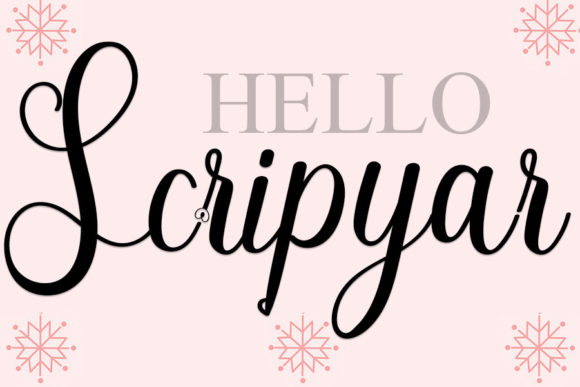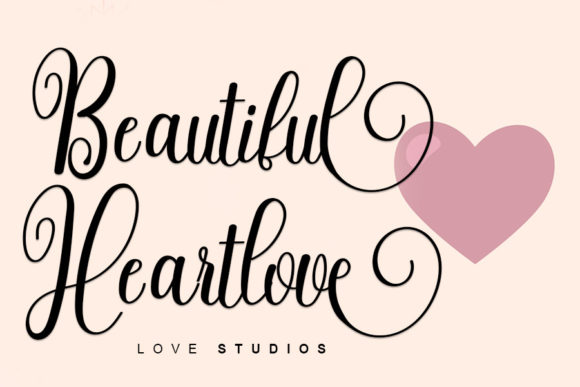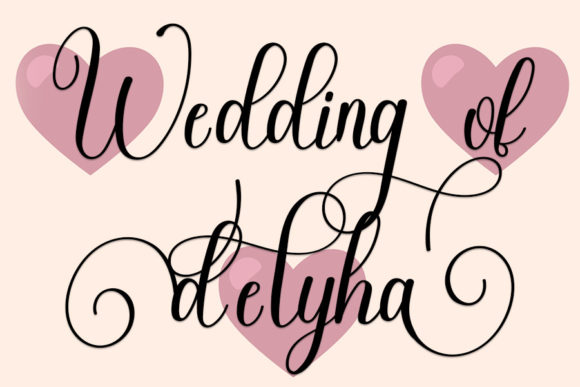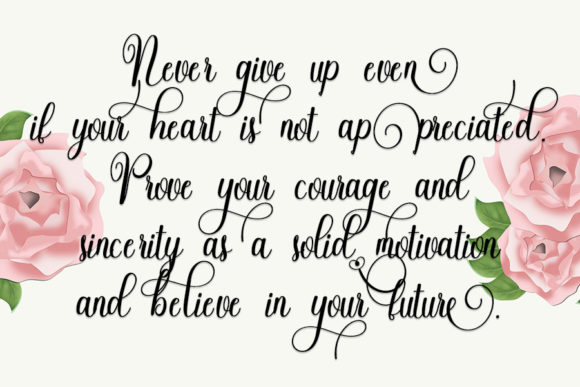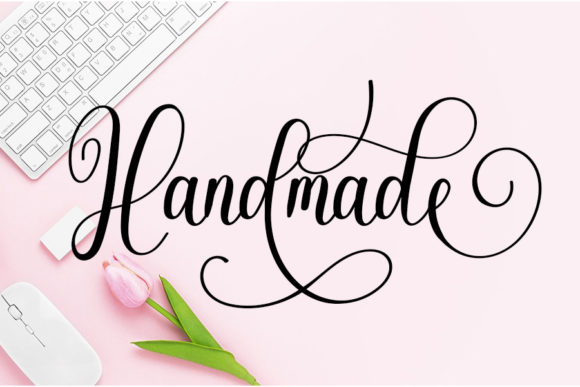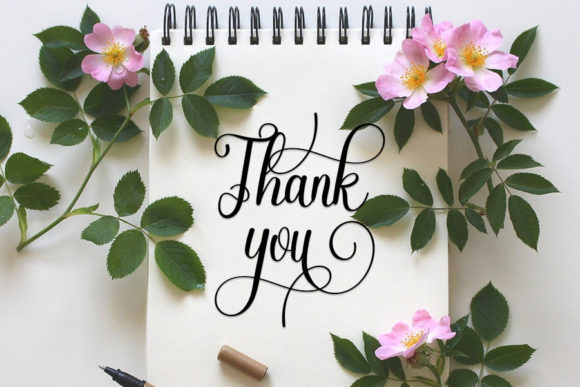
The Art of Elegant Writing: Unlocking the Power of Calligraphy Font
As I sat at my desk, staring at a blank piece of paper, I felt a surge of creativity wash over me. I was in the midst of designing a wedding invitation, and I wanted it to be perfect. The words “I do” danced in my head, and I knew exactly what I needed – a touch of elegance, a dash of whimsy, and a whole lot of love. That’s when I turned to the Calligraphy Font, a timeless and charming handwritten font that brings any design to life.
With the Calligraphy Font, you can add a personal touch to your designs, making them stand out from the crowd. Whether you’re a seasoned designer or a DIY enthusiast, this font is a valuable addition to your toolkit. Its PUA encoding means you can access all of the glyphs and swashes with ease, giving you the freedom to create truly unique and beautiful designs.
Key Features of Calligraphy Font
- Unique Characteristics: Calligraphy Font features intricate, hand-drawn lettering with elegant flourishes and subtle variations in stroke width, giving it a distinctive and artistic feel.
- Font Styles: Calligraphy Font comes in various styles, including Regular, Italic, Bold, and Bold Italic, allowing designers to add depth and visual interest to their designs.
Calligraphy Font Review
Overall, I think the Calligraphy Font is a beautiful addition to any design project. It’s perfect for creating a touch of elegance and sophistication.
- The fluid, handwritten feel of the font is absolutely stunning. It’s perfect for creating invitations, greeting cards, or any other design where a personal touch is needed.
- The font is highly customizable, allowing you to adjust the size, color, and spacing to fit your design needs.
- The Calligraphy Font is also highly legible, making it perfect for body text or headings.
- The font may not be the best choice for projects that require a lot of text or dense content. The fluid, handwritten feel can make it difficult to read when used extensively.
- The font is not as versatile as some other font styles, limiting its use to specific design projects.
Overall, I think the Calligraphy Font is a great addition to any designer’s toolkit, but it’s not without its limitations. With careful use and planning, it can add a beautiful touch to any design project.
Calligraphy font is commonly used in:
- Special occasion cards and gifts
- Brand logos and typography
- Decorative text and headers
Tips for Getting the Most Out of Calligraphy Font
Here are some tips to help you get the most out of calligraphy font:
- Use color and texture to add depth and interest to your text.
- Combine calligraphy font with other typography styles for a unique look.
Alternatives to Calligraphy Font
Lobster Font is a casual, cursive font that is ideal for use in headings and titles. It has a more playful and relaxed feel compared to Calligraphy Font. When to use: headings, titles, and casual text.
Comparison to Calligraphy Font: Lobster Font is more casual and playful, whereas Calligraphy Font is more formal and elegant. Lobster Font has a more rounded and fluid shape, whereas Calligraphy Font has a more precise and decorative shape.